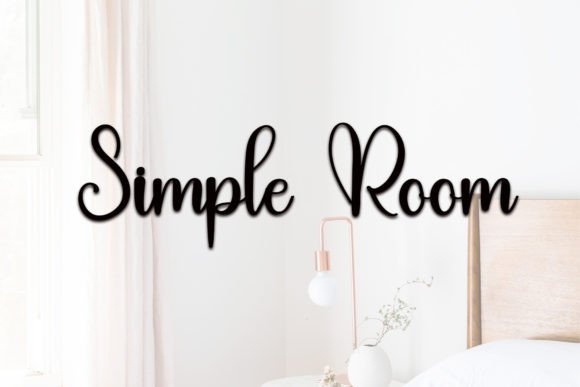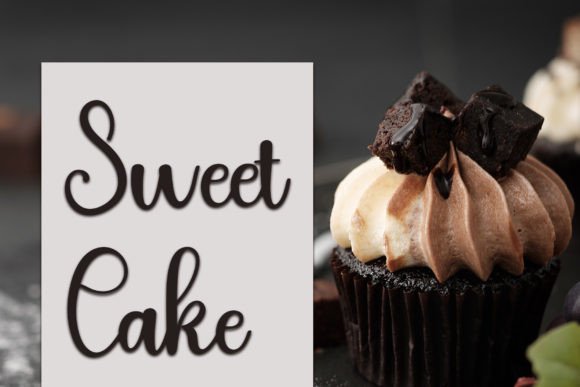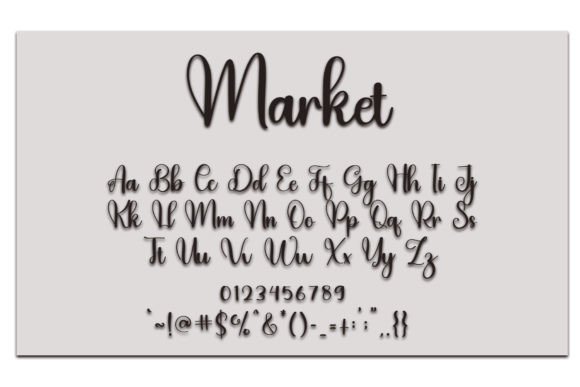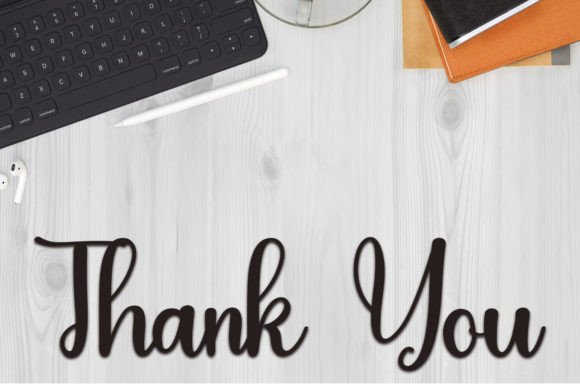
Introduction to Market Font
Market is a stylish handwritten font with a contemporary atmosphere and impeccable form, inspired by a timeless classic calligraphy.
Balanced and varied, this font was designed to enhance the beauty of your projects .